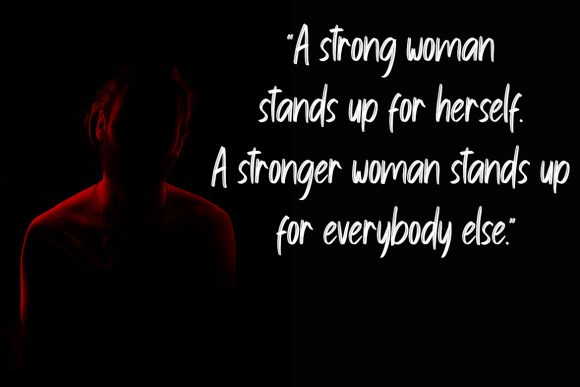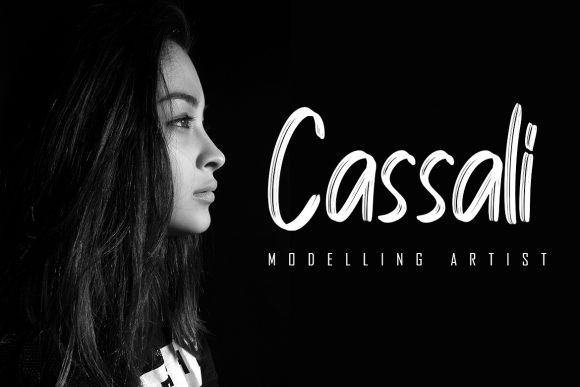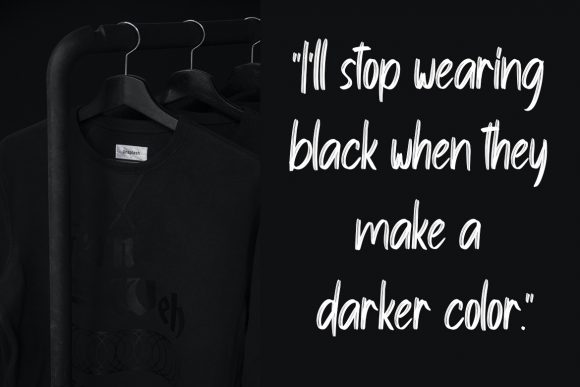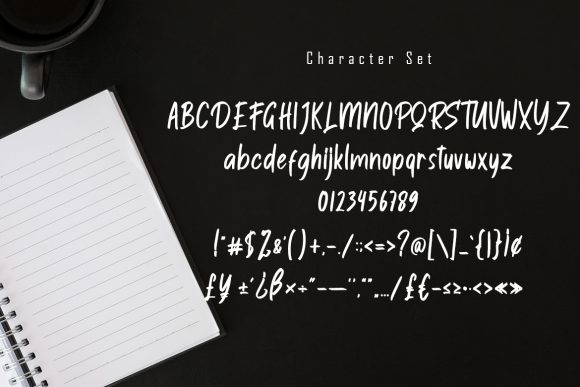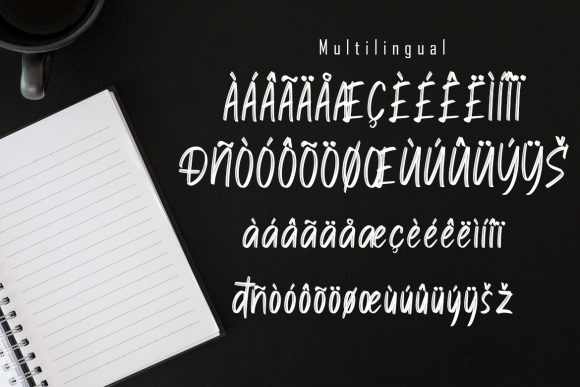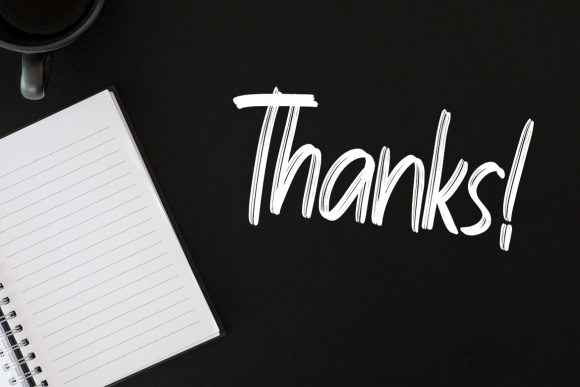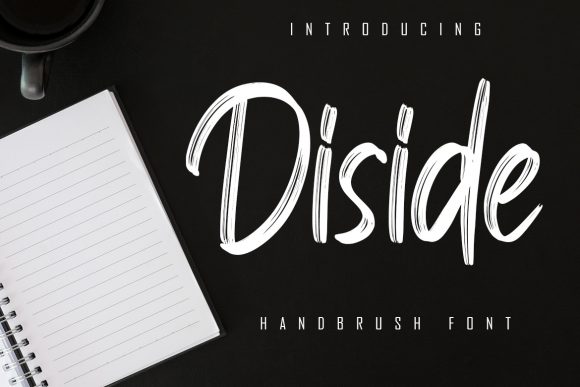
Introducing Diside Font: The Urban, Cool, and Modern Brushed Display Font
In the world of typography, fonts play a crucial role in conveying messages, expressing emotions, and creating visual identities. For designers, crafters, and creative enthusiasts, finding the right font can make all the difference in their projects. If you’re looking for a font that exudes an urban, cool, and modern vibe, look no further than Diside Font. In this article, we’ll dive into the features, uses, and benefits of Diside Font, and explore how it can elevate your designs to the next level.
What is Diside Font?
Diside Font is a brushed display font that boasts a unique, urban, cool, and modern aesthetic. Its distinctive character makes it perfect for a wide range of applications, from logos and branding to invitations, stationery, wedding designs, social media posts, and more. With Diside Font, you can add a touch of edginess and sophistication to your designs, making them stand out from the crowd.
Key Features of Diside Font
- Urban, Cool, and Modern Look: Diside Font’s brushed texture and sleek lines give it a contemporary feel that’s perfect for designs that require a modern twist.
- Versatile: Diside Font is suitable for various applications, including logos, branding, invitations, stationery, wedding designs, social media posts, and more.
- Easy to Read: Despite its bold and edgy appearance, Diside Font remains highly legible, making it perfect for use in both digital and print formats.
- Customizable: With Diside Font, you can experiment with different colors, textures, and effects to create a unique look that suits your design needs.
Uses of Diside Font
Diside Font’s versatility makes it an excellent choice for a wide range of design projects. Here are some ideas to get you started:
- Logo Design: Create a bold and memorable logo for your brand with Diside Font.
- Branding: Use Diside Font to develop a consistent visual identity across your brand’s marketing materials.
- Invitations and Stationery: Add a touch of sophistication to your invitations, business cards, and letterheads with Diside Font.
- Wedding Designs: Make your wedding designs stand out with Diside Font’s unique and romantic look.
- Social Media Posts: Elevate your social media game with eye-catching posts and stories created with Diside Font.
Benefits of Using Diside Font
So, why choose Diside Font for your design projects? Here are some benefits you can expect:
- Unique and Memorable: Diside Font’s distinctive look will help your designs stand out and leave a lasting impression.
In conclusion, Diside Font is an exceptional brushed display font that offers a unique blend of urban, cool, and modern style. Its versatility, legibility, and customizability make it an excellent choice for designers, crafters, and creative enthusiasts. Whether you’re working on a logo, branding, invitations, stationery, wedding designs, or social media posts, Diside Font is sure to elevate your designs to new heights. So, what are you waiting for? Get creative with Diside Font today and experience the power of exceptional typography!